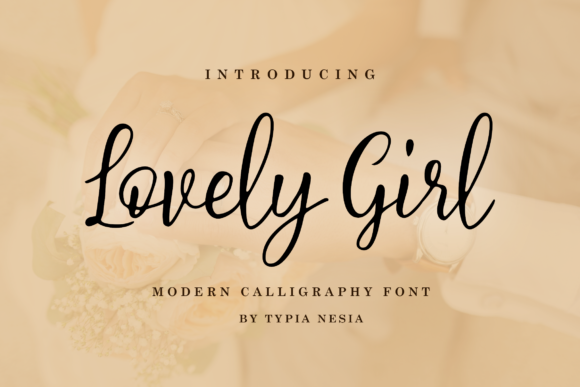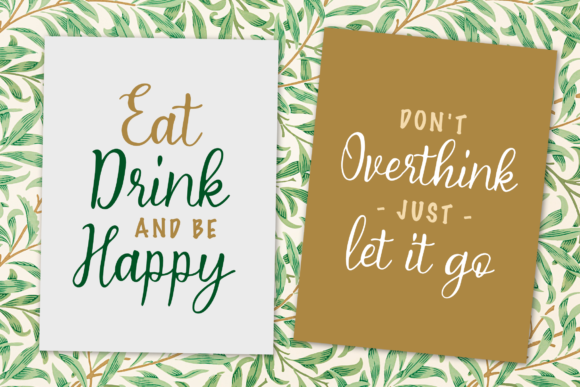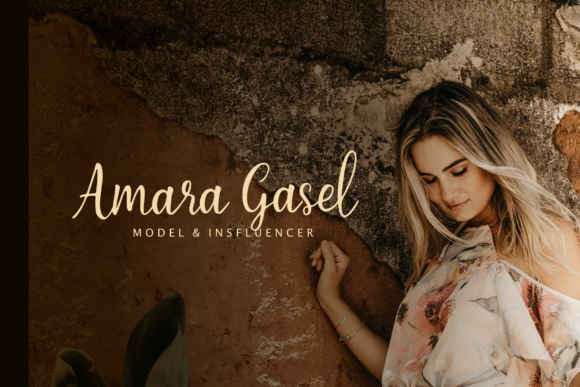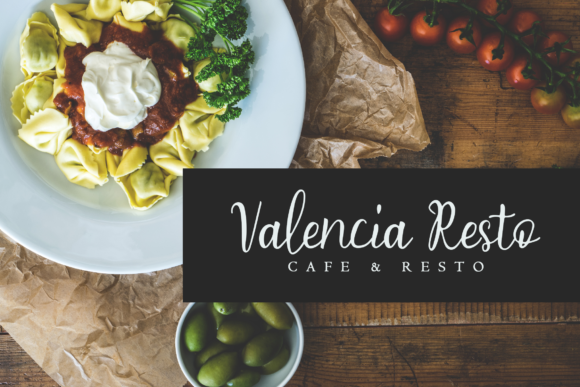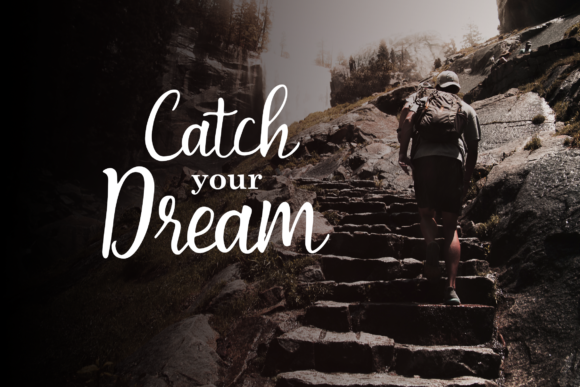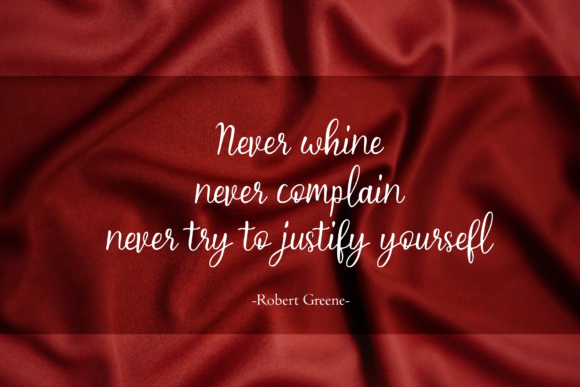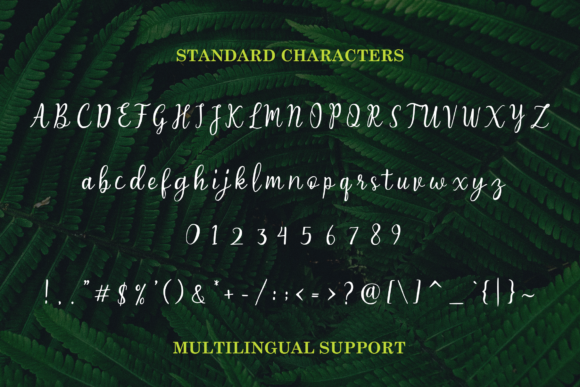
Lovely Girl Font
About Lovely Girl Font
Lovely Girl is a stunningly romantic and charming script font with a sweet feel. Get inspired by its elegant style!